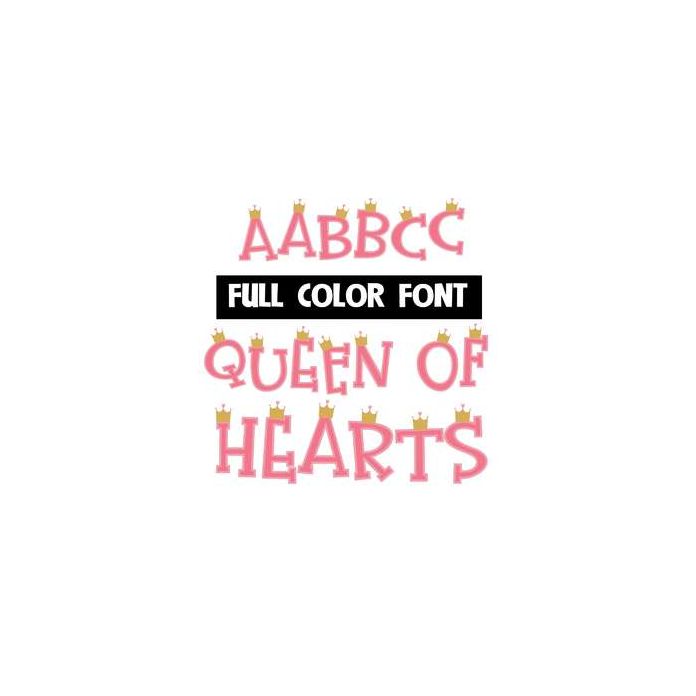
This full-color font features little crowns throughout. Mix up both cases as you type for best results. This font works best for titles, displays, posters and more. Please note color fonts will show as black in non compatible programs. This font type is compatible with Silhouette Studio.